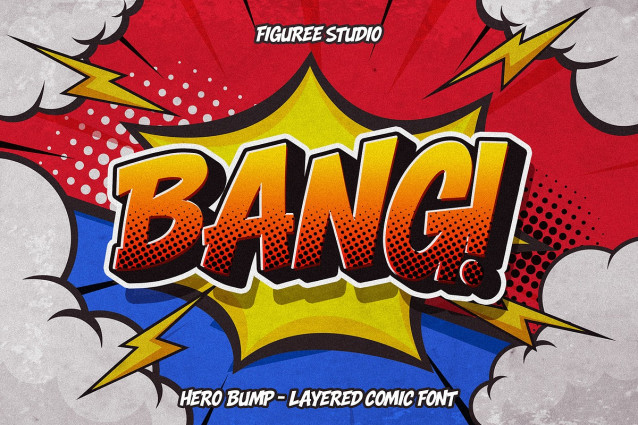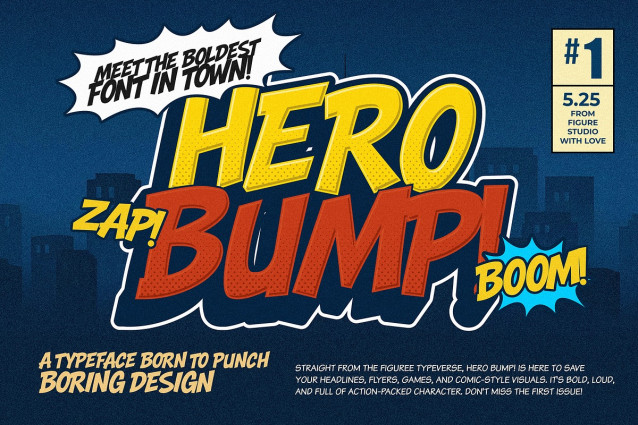
Hero Bump Font
Hero Bump Font is a bold, punchy comic display font that explodes with energy! Designed in all-caps, this typeface is the perfect companion for projects that need to shout, zap, and boom with fun. Whether you’re designing for kids, games, cartoons, packaging, or comic books, HeroBump brings an unstoppable character to every letter — now with a powerful Extrude style for that extra punch!